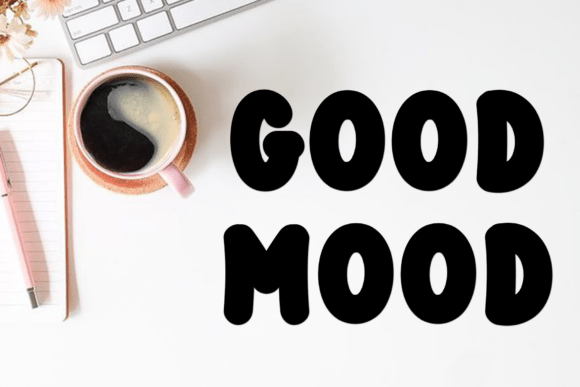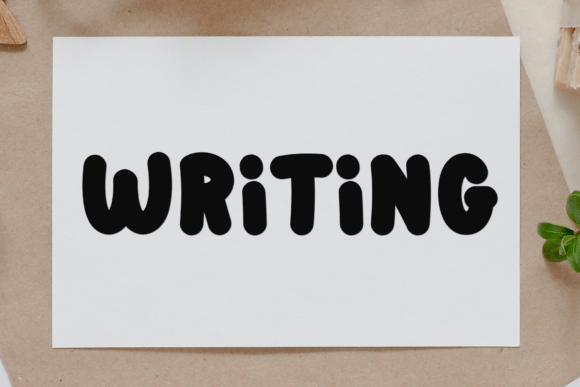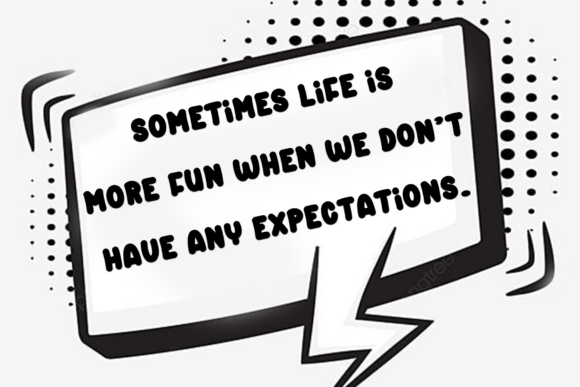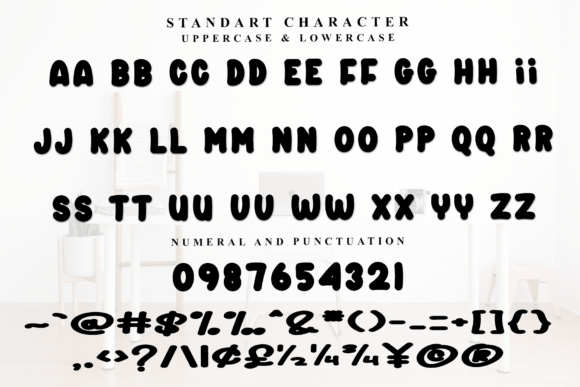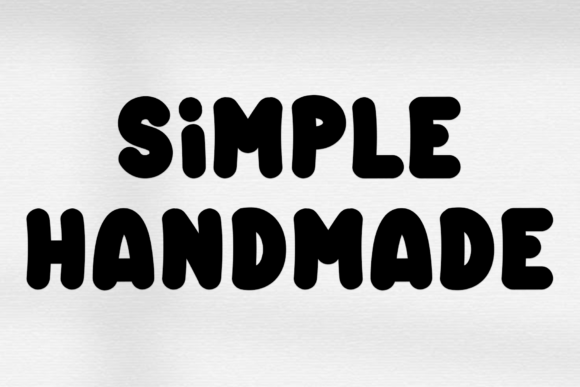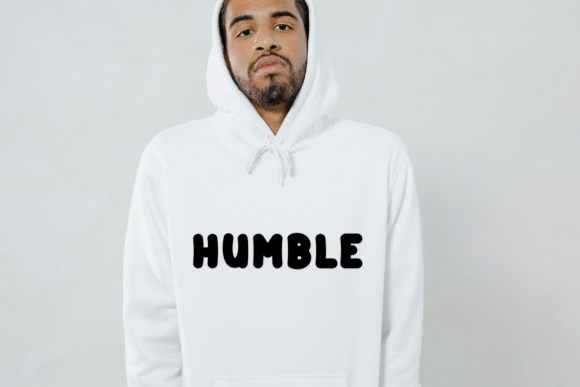
Introducing Boom Font: The Ultimate Holiday Typeface
The holiday season is upon us, and what better way to get into the spirit than with a festive and merry typeface? Look no further than Boom Font, a decorative font that captures the essence of the holiday season with its whimsical flair and enchanting charm. In this article, we’ll dive into the world of Boom Font, exploring its features, uses, and benefits for designers and crafters alike.
Boom Font is a carefully crafted typeface designed to bring a touch of magic to your designs. Its decorative elements and whimsical flair evoke the nostalgia and cheer of the holiday season, making it perfect for a wide range of projects, from greeting cards and gift tags to holiday-themed posters and social media graphics. With Boom Font, you can add a dash of festive fun to your typography and make your designs shine.
Whether you’re a designer, crafter, or DIY enthusiast, Boom Font is the perfect addition to your holiday projects. Its festive and merry vibe makes it ideal for:
- Greeting cards: Create personalized and unique holiday cards that will delight your loved ones.
- Gift tags: Add a touch of elegance and whimsy to your gift tags and make them stand out.
- Holiday-themed projects: From posters and flyers to social media graphics and website headers, Boom Font is the perfect choice for any holiday-themed project.
One of the best features of Boom Font is its PUA (Private Use Area) encoding. This means that you can access all of the amazing glyphs and ligatures with ease, giving you a wide range of creative possibilities. With PUA encoding, you can:
- Access a wide range of glyphs and ligatures, including festive symbols and decorative elements.
- Easily switch between different glyphs and ligatures to create unique and personalized designs.
Bringing a Cheerful and Nostalgic Ambiance to Your Words
Boom Font is more than just a typeface – it’s an experience. Its whimsical flair and decorative elements evoke a sense of nostalgia and cheer, transporting your readers to a magical world of wonder and enchantment. With Boom Font, you can:
- Create designs that are both festive and elegant.
- Add a touch of personality and whimsy to your typography.
- Evoke a sense of nostalgia and holiday cheer in your readers.
Tips and Tricks for Using Boom Font
To get the most out of Boom Font, here are a few tips and tricks to keep in mind:
- Experiment with different glyphs and ligatures to create unique and personalized designs.
- Pair Boom Font with other festive fonts to create a unique and eye-catching typography combination.
- Use Boom Font in combination with holiday-themed graphics and illustrations to create a cohesive and festive design.